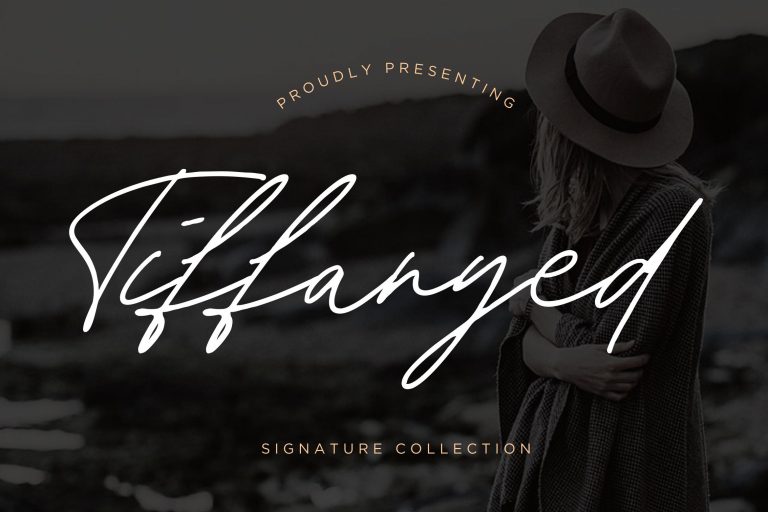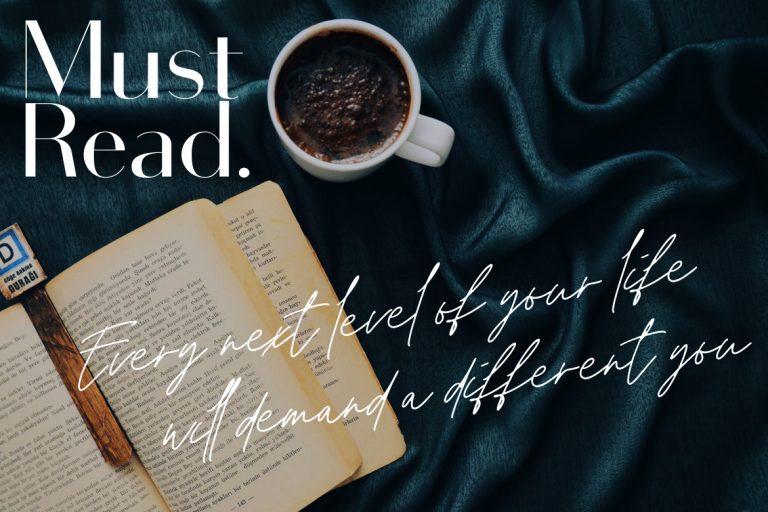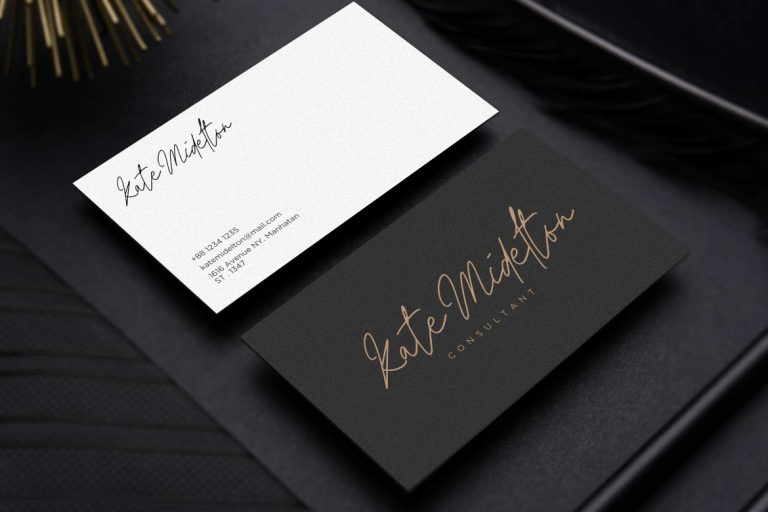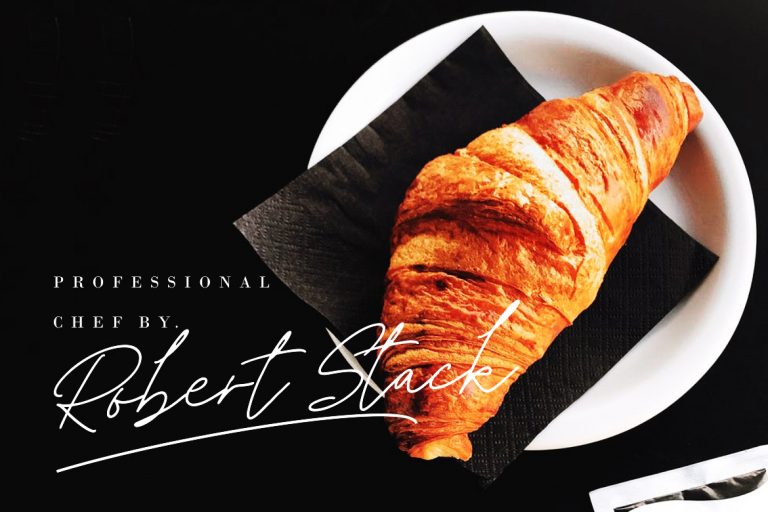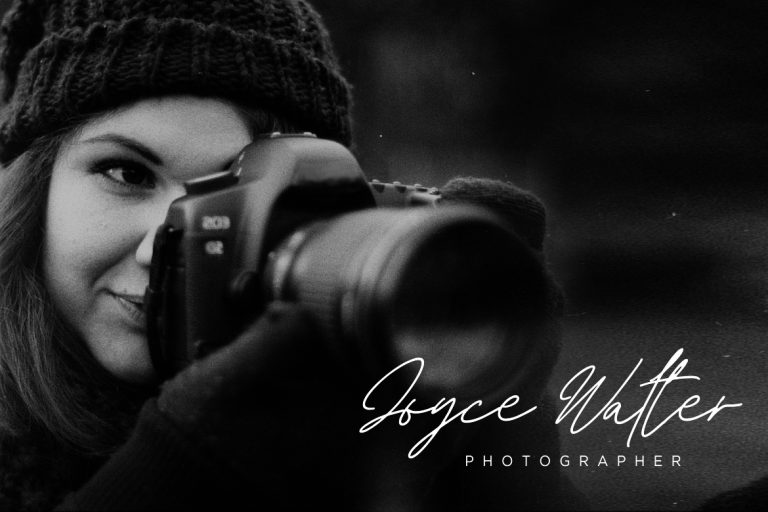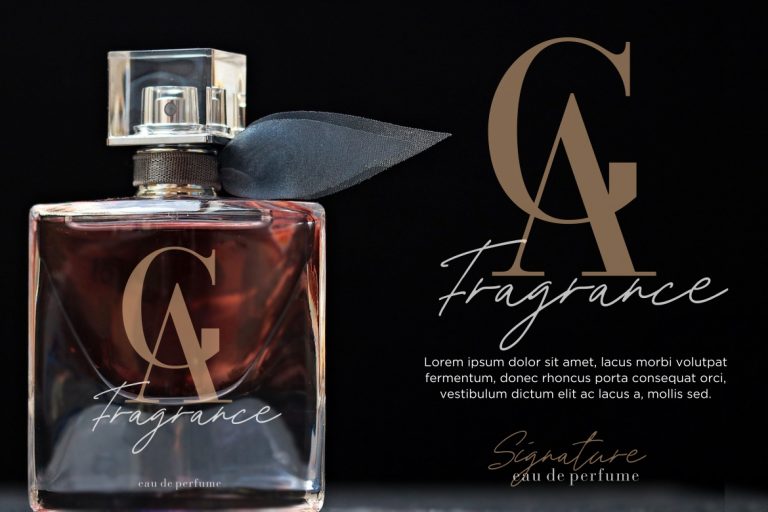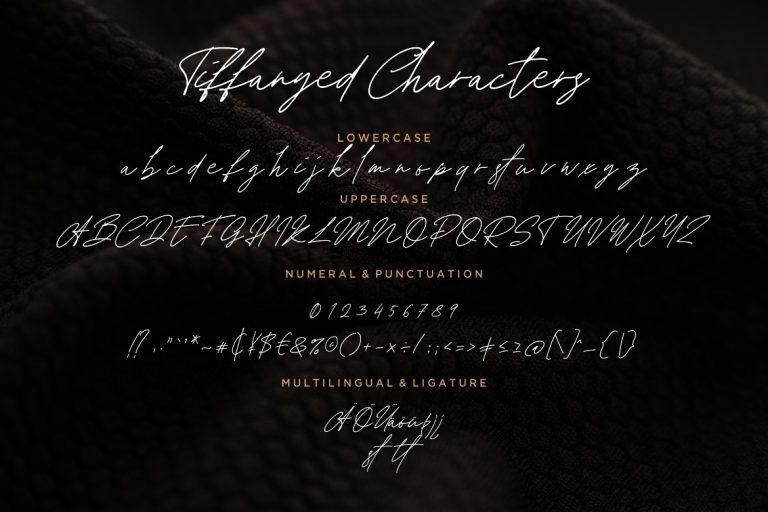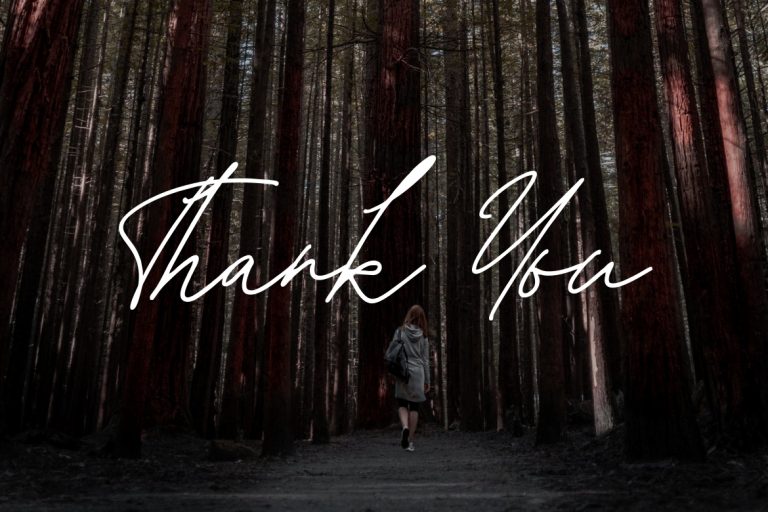
Tiffanyed Signature is a handwritten stylish signature font, this collection series will make your project looks awesome.
Tiffanyed Signature is perfect for branding projects, logo, wedding designs, social media posts, advertisements, product packaging, product designs, label, photography, watermark, invitation, stationery and any projects that need handwriting taste.
- Standard glyphs
- Ligature
- Fonts include multilingual support for; ä ö ü Ä Ö Ü ß ¿ ¡